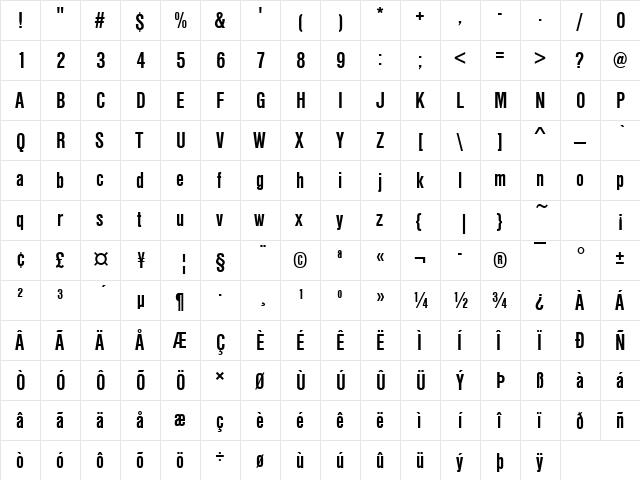
NimbusSanDCon Bold Font Preview
NimbusSanDCon Bold
NimbusSanDCon Bold Font Details
Design Context for NimbusSanDCon Typeface
NimbusSanDCon offers clean, dependable letterforms without strong stylistic allegiance, making it a practical choice for designers who need flexibility. The heavy weight commands attention and anchors typographic hierarchies.